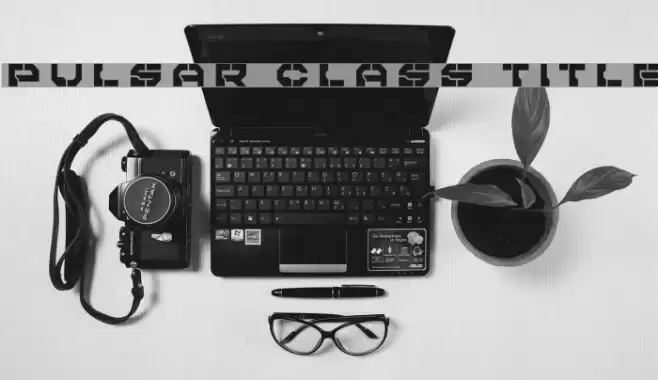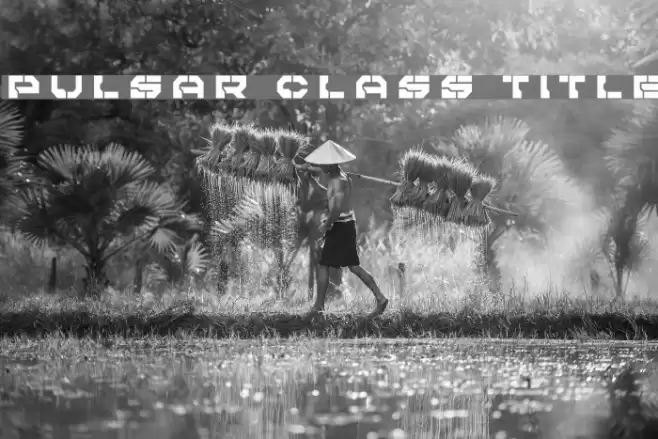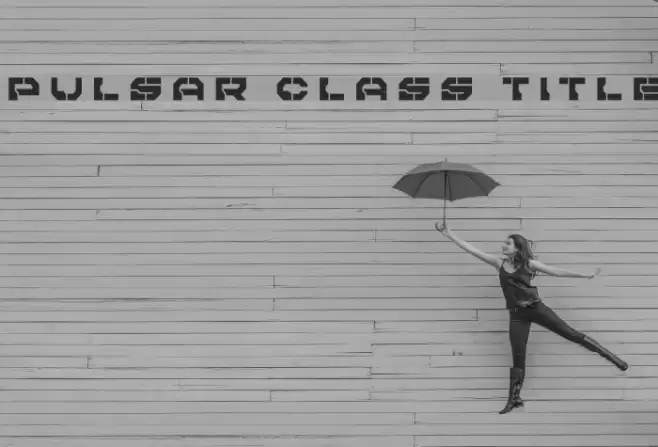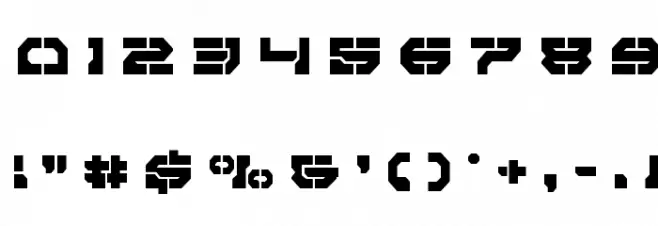
Pulsar Class Title Font
Pulsar Class Title Description
This font features a bold, geometric design with a futuristic and industrial feel. The characters are constructed with sharp angles and cut-out sections, creating a sense of movement and modernity. The uppercase and lowercase letters maintain a consistent style, while the numbers and special characters complement the overall aesthetic. The font's unique structure makes it stand out, ideal for projects that require a strong visual impact.
A bold, geometric font with a futuristic, industrial style from Uncategorized fonts.
- Proposed Projects: Ideal for sci-fi themed designs, technology branding, video game titles, and modern posters.
- Overall Style: Futuristic, Industrial